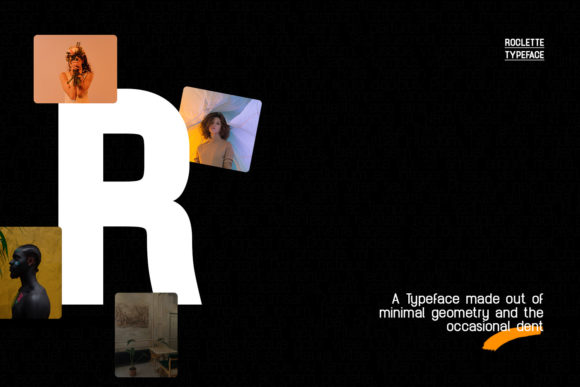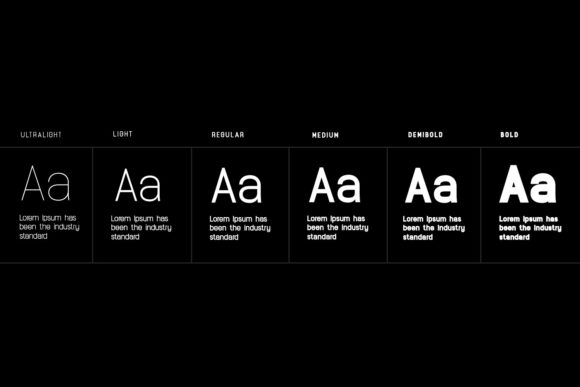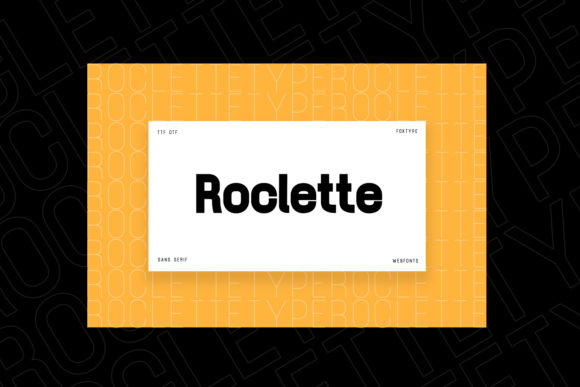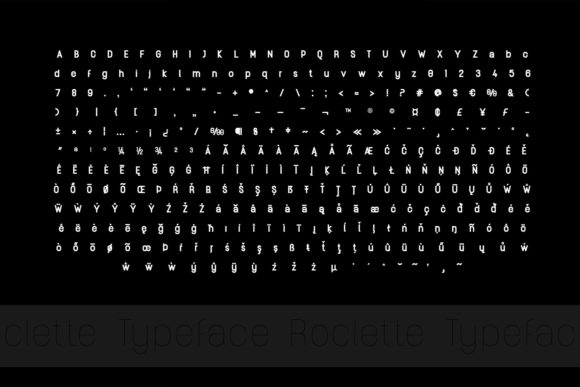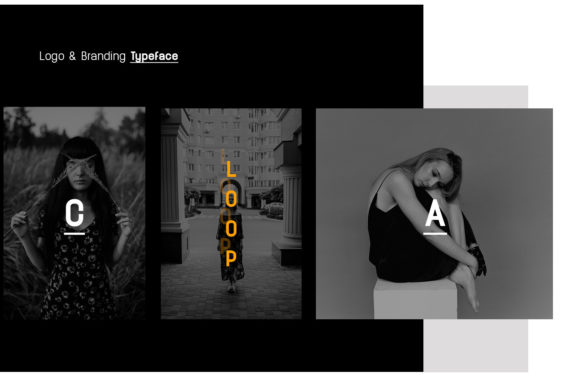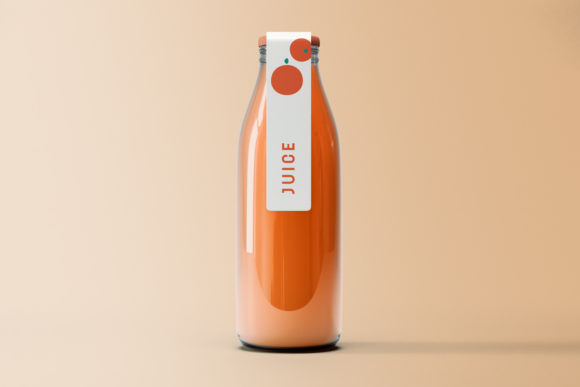
Introduction to Roclette Font
Have you ever stumbled upon a font that perfectly captures the essence of your creative project? A font that speaks to you, yet remains neutral enough to let your design shine? That’s exactly what the Roclette Font does. With its dependable and uncompromising style, this powerful font family is a game-changer for designers looking to make a lasting impression.
Whether you’re working on a high-quality branding project, creating a magazine layout, or crafting a cinematic title sequence, Roclette Font is the perfect design resource. Its clean, minimalist aesthetic is both warm and quirky, making it an ideal choice for a wide range of applications.
One of the standout features of Roclette Font is its versatility. With various weights to choose from, you can experiment with different styles and create a unique visual identity for your project. Plus, its transparent background makes it easy to use as a free download or incorporate into your design without any fuss.
Key Features of Roclette Font
- Includes a range of unique characters and glyphs, perfect for adding a touch of personality to your design.
- Designed to work well at high resolutions, ensuring crisp and clear text even at large sizes.
- The font size is scalable, allowing you to use it for a variety of applications, from small text to large headings.
Honest Review: Roclette Font
One thing that works well about the Roclette Font is its modern and sleek aesthetic. The font has a unique, handcrafted feel to it, which can add a lot of character to your design. The transparent background is also a great touch, allowing you to easily layer it over other elements in your design.
- ✨ Unique, handcrafted aesthetic
- ✨ Transparent background for easy layering
However, there are a few limitations to consider. The Roclette Font is not a fully comprehensive font family, which means it may not include all the characters you need for your project. Additionally, some users have reported issues with the font’s legibility at smaller font sizes.
- ⚠️ Not a fully comprehensive font family
- ⚠️ Potential issues with legibility at smaller font sizes
Overall, I think the Roclette Font is a high-quality design resource that can add a lot of personality to your creative projects. While it may have some limitations, I appreciate its unique aesthetic and transparent background. If you’re looking for a free font to add some flair to your design, the Roclette Font is definitely worth checking out.
Roclette Font
Tips for Getting the Most Out of Roclette Font
To maximize the effectiveness of Roclette Font, experiment with different font sizes, colors, and layering techniques. You can also combine it with other design elements to create a unique and eye-catching visual identity.
Roclette Font is suitable for a wide range of applications, including:
Branding and logos
Infographics and data visualizations
Advertising and marketing materials
Web design and development